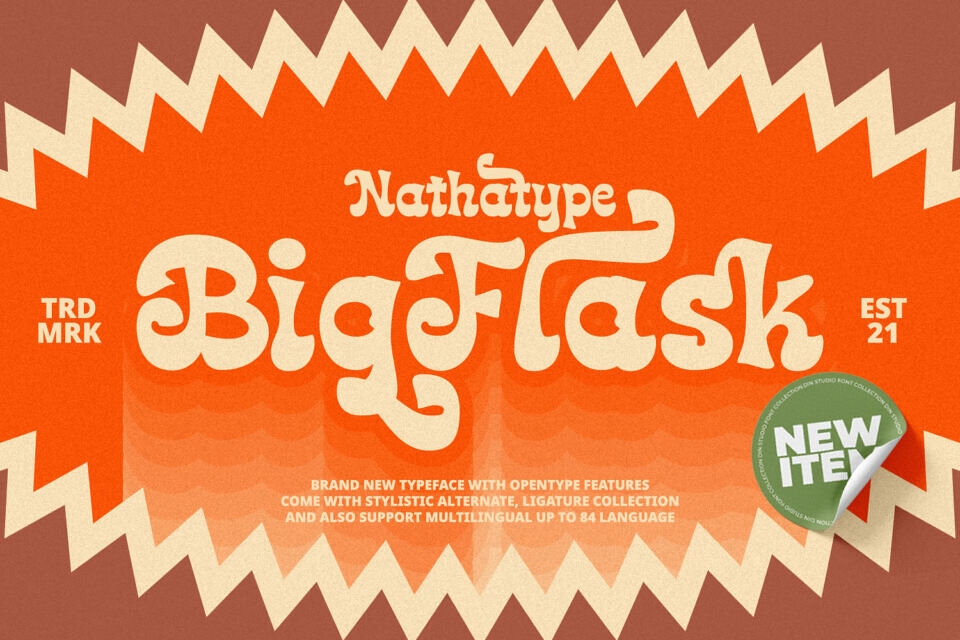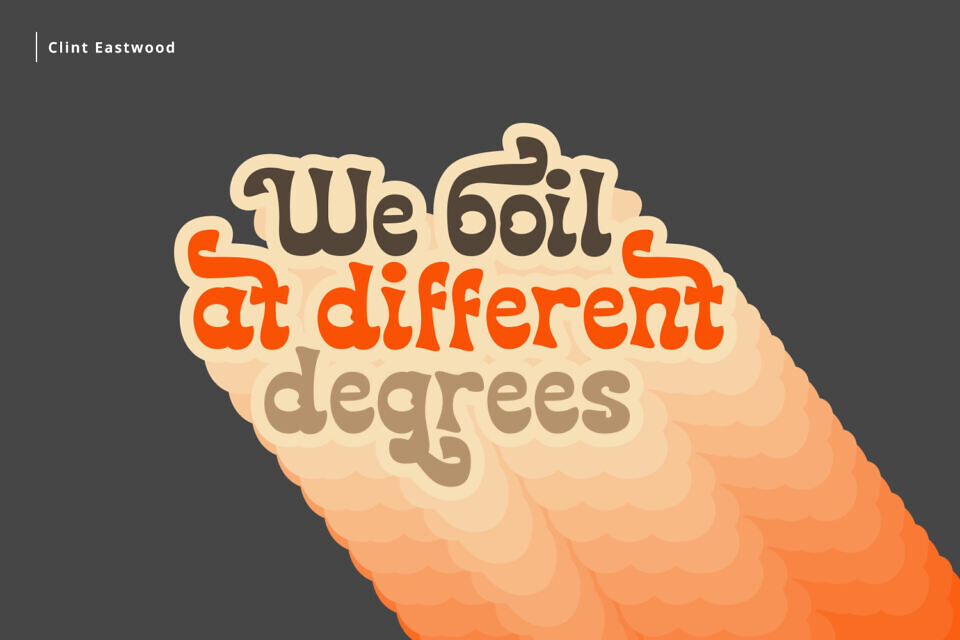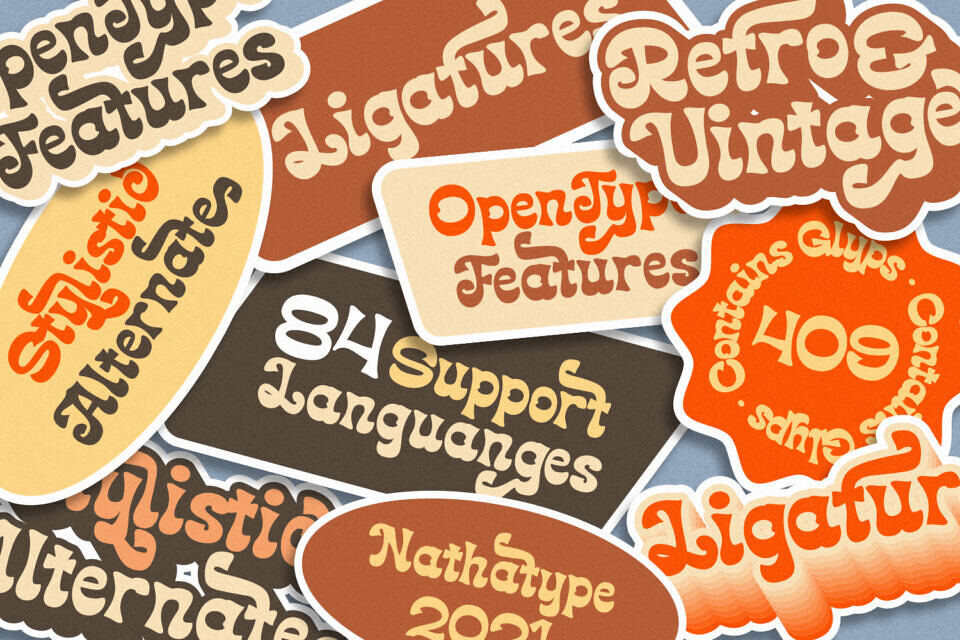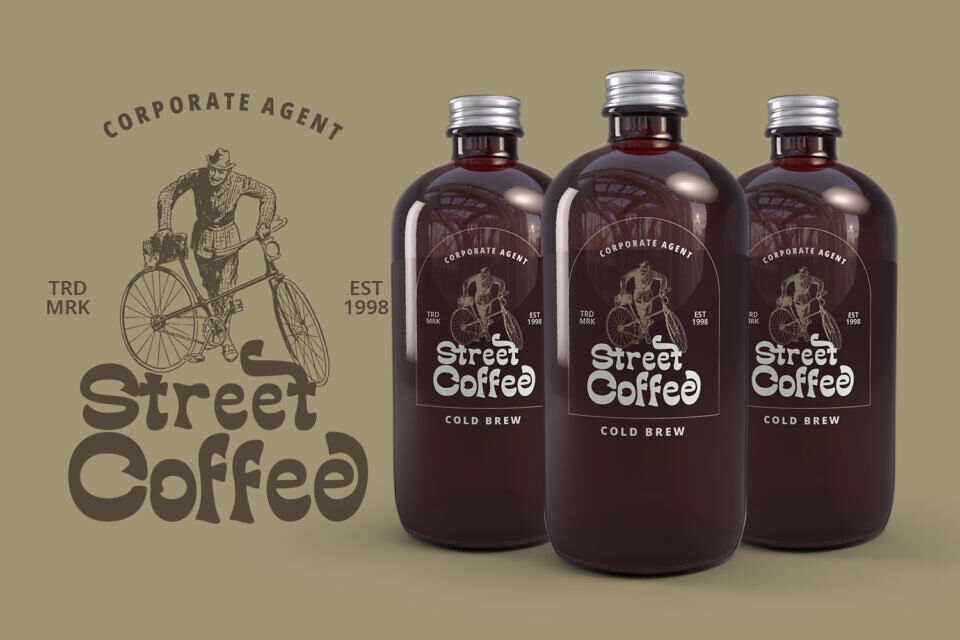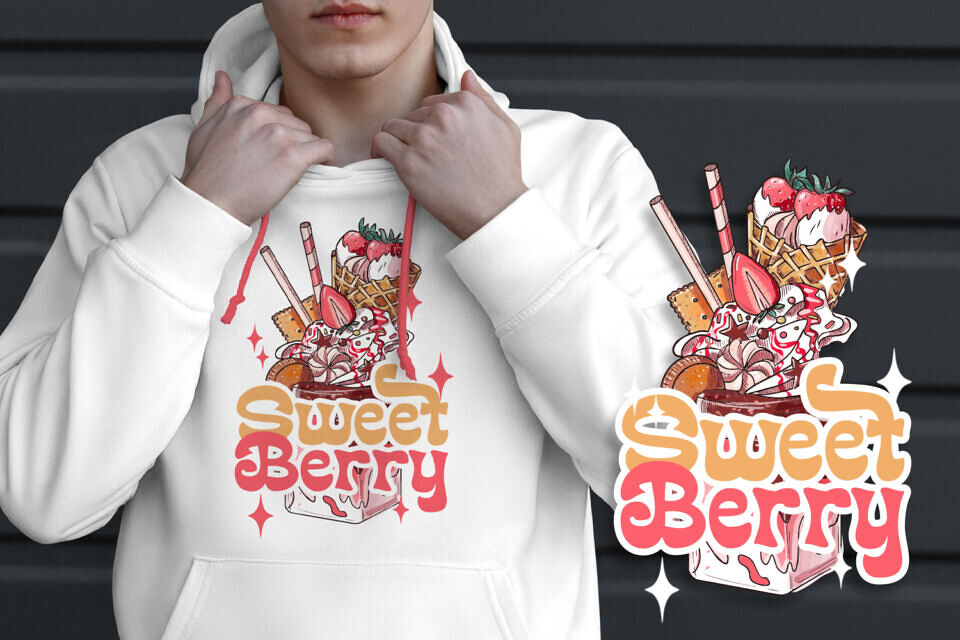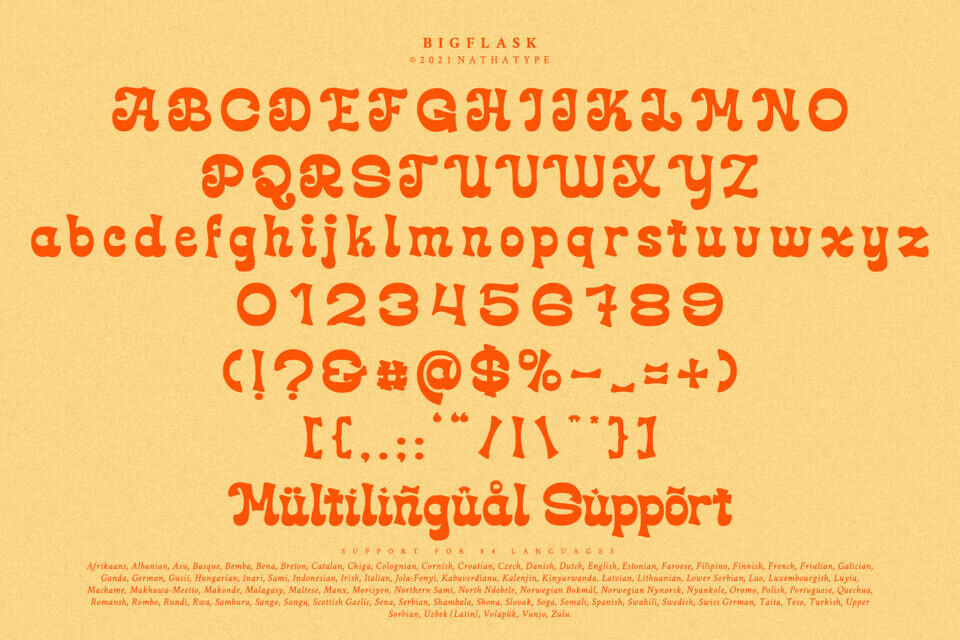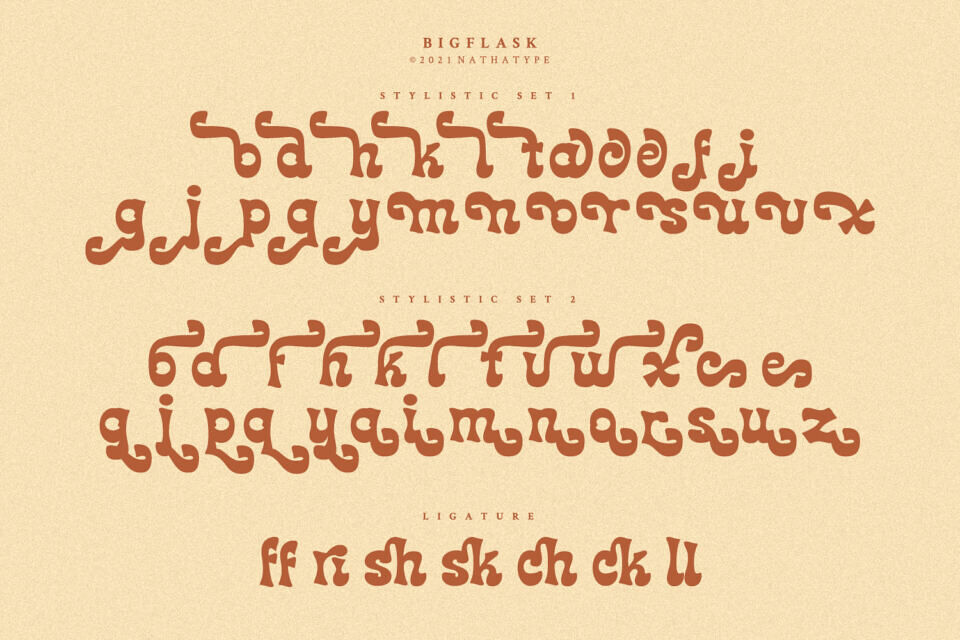
Big Flask Font
Big Flask is a typeface that will make your projects elevate. An excellent choice to add the right amount of retro touch.
This typeface with artistic style looks very interesting for loads of different projects and promotions. Use it to create standout headings, logo, book cover, poster, t-shirt, branding, and advertisement needs.
Designed by: Din Studio